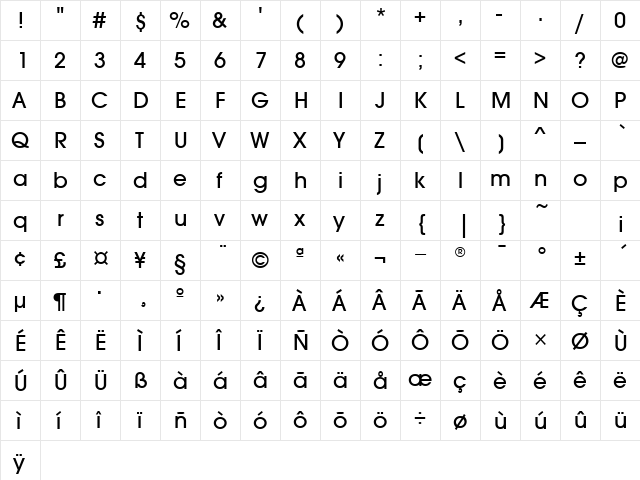
AvantGardeMdITCTT Regular Font Preview
AvantGardeMdITCTT Regular
AvantGardeMdITCTT Regular Font Details
| Foundry | International Typeface Corporation |
| Designer | Herb Lubalin/Tom Carnase |
Design Context for AvantGardeMdITCTT Typeface
AvantGardeMdITCTT offers clean, dependable letterforms without strong stylistic allegiance, making it a practical choice for designers who need flexibility.